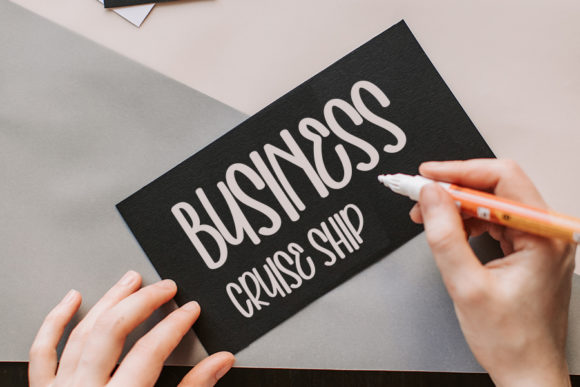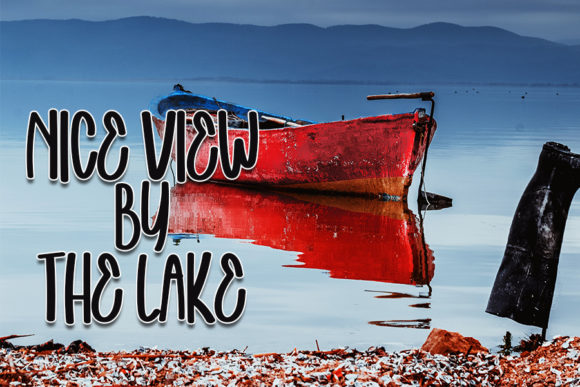
Fishing Hook Font
db-ku.com - Script & Handwritten -- Fishing Hook is a fun, bold and friendly handwritten font. It is suitable for any branding, product packaging, invitation, quote, t-shirt, label, poster, logo that you wish to develop.